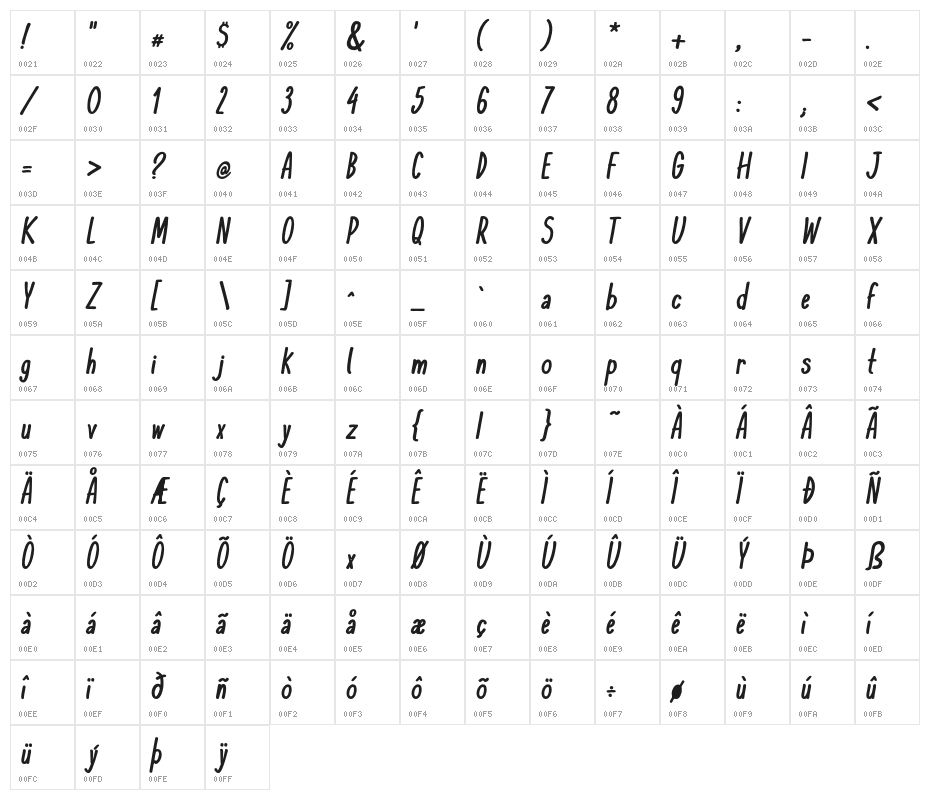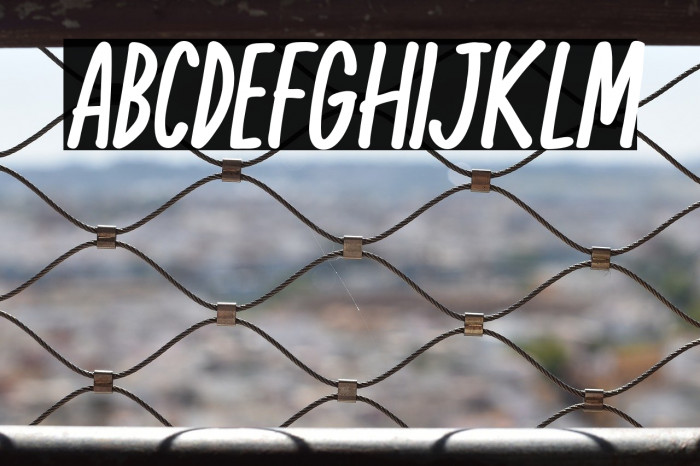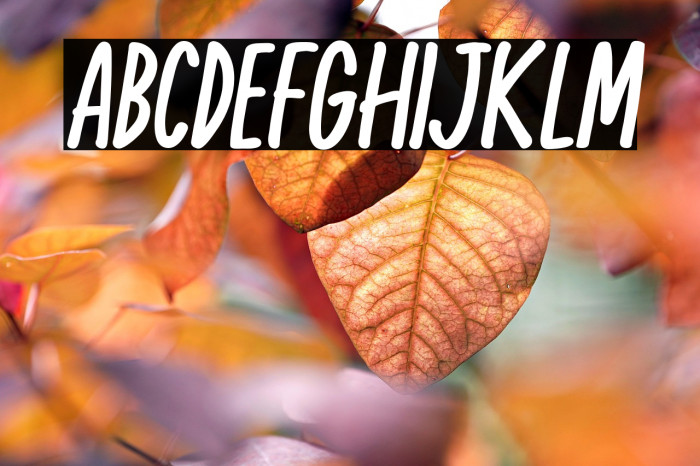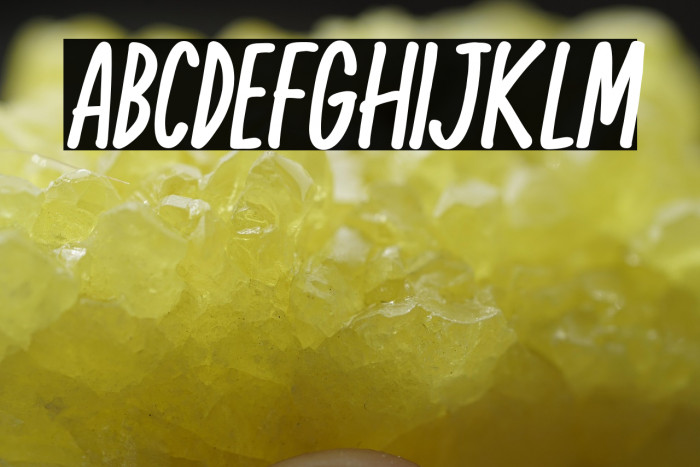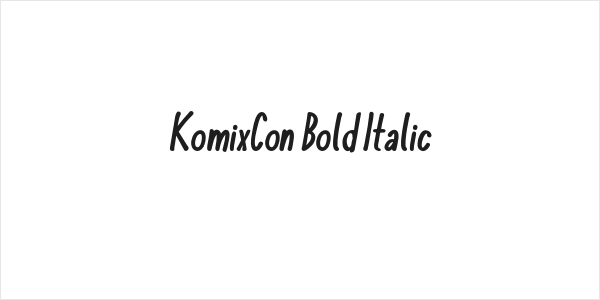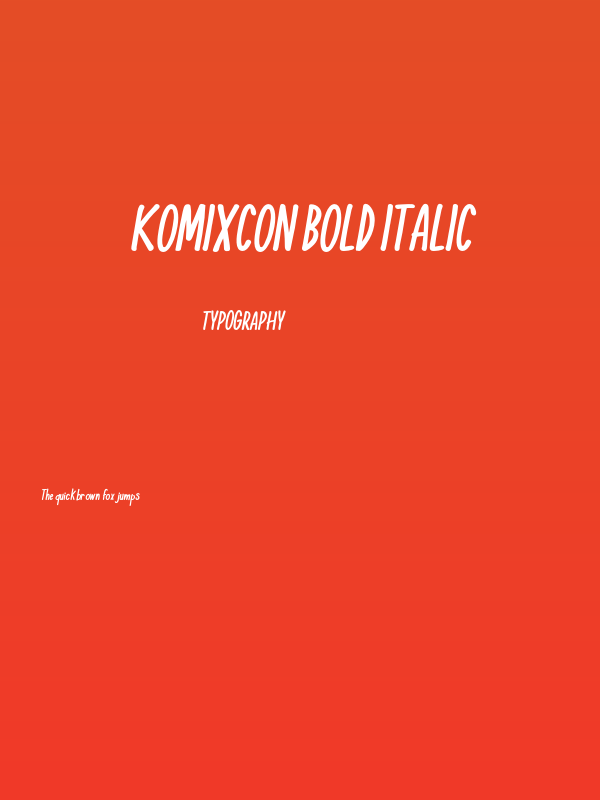
KomixCon Bold Italic Font
KomixCon Bold Italic Description
This font features a playful and dynamic style, characterized by its bold and italicized form. The letters are slightly slanted, adding a sense of motion and energy. The strokes are thick and consistent, providing a strong visual impact. The uppercase and lowercase letters maintain a cohesive look, with rounded edges that soften the overall appearance. The numerals and special characters are designed to match the lively and informal tone of the alphabet. This font is ideal for projects that require a fun and engaging aesthetic.
| Proposed Projects | Perfect for comic books, children's books, playful branding, and eye-catching posters. |